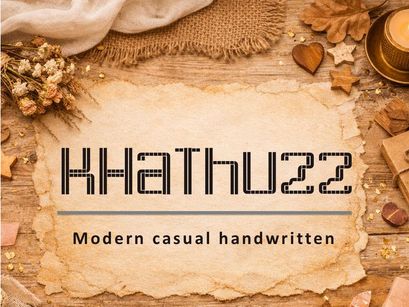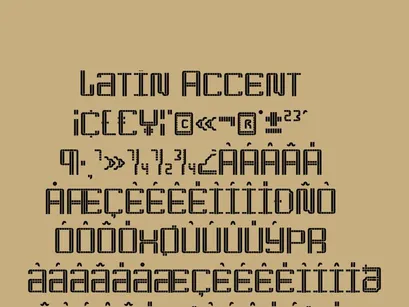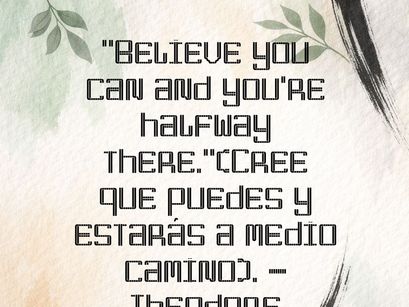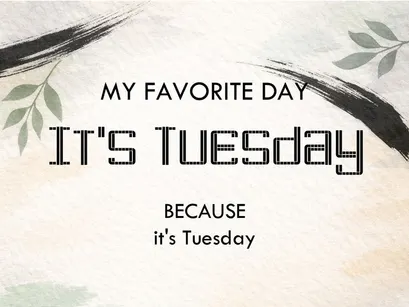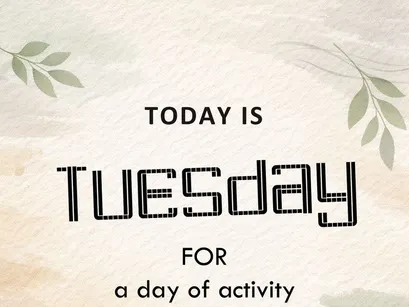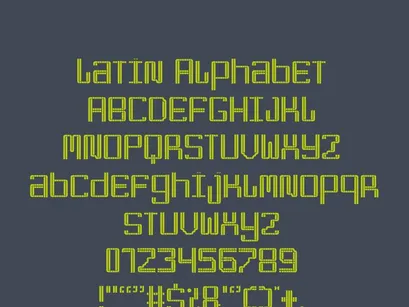
KHaThuzz is a modern and casual handwritten typeface, created with structured strokes that evoke handwriting in a clean and balanced digital format.
Its design combines the artisanal with the geometric, ideal for creative projects seeking authenticity and contemporary style.
Perfect for:
Motivational phrases and emotional content.
Handmade branding and packaging for handmade products.
Digital planners and agendas.
Youthful designs and creative covers.
Uppercase letters, lowercase letters, numbers, and Latin accents.